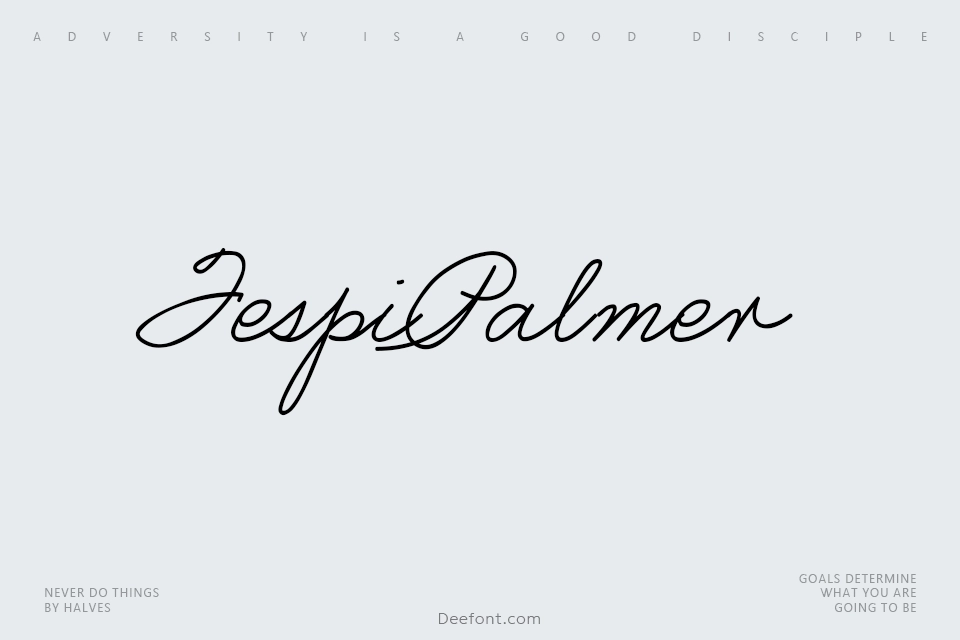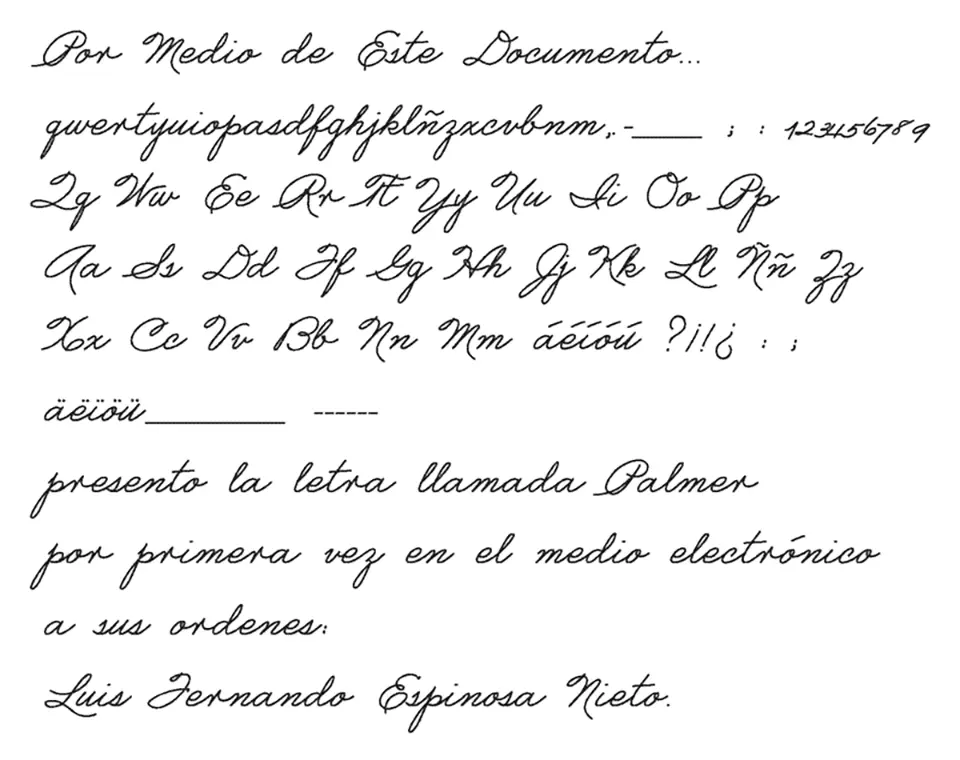
FespiPalmer Font
The FespiPalmer font is a retro-inspired script typeface that draws influence from classic Palmer Method handwriting, reminiscent of the calligraphy style used in mid-20th-century schools. Featuring smooth, flowing curves and traditional stroke forms, this font injects a sense of nostalgic elegance into your designs, making it perfect for invitations, branding projects, vintage posters, and more. Its playful yet sophisticated look brings an authentic hand-lettered feel to any creative work, capturing the warmth and character of handwritten scripts in a digital format.
Designed by:fespi